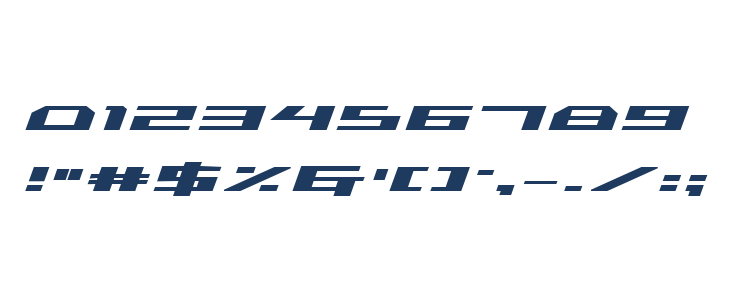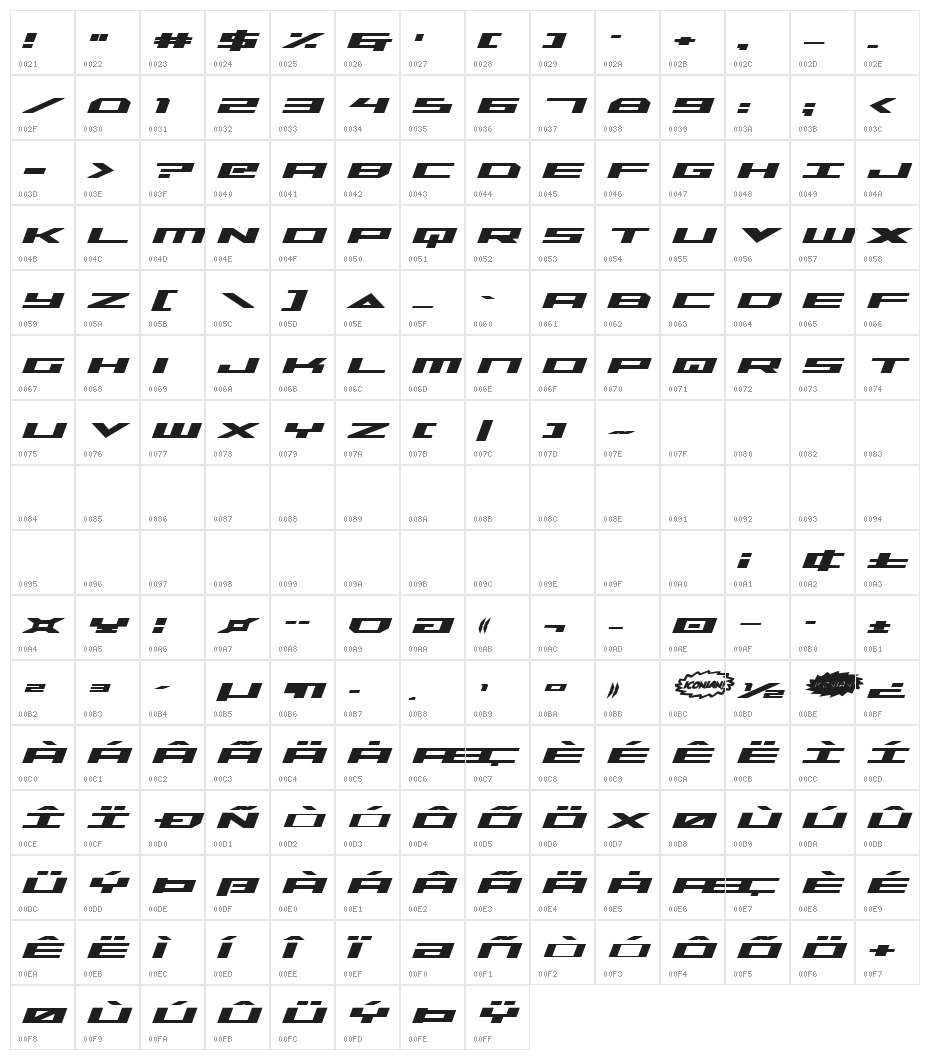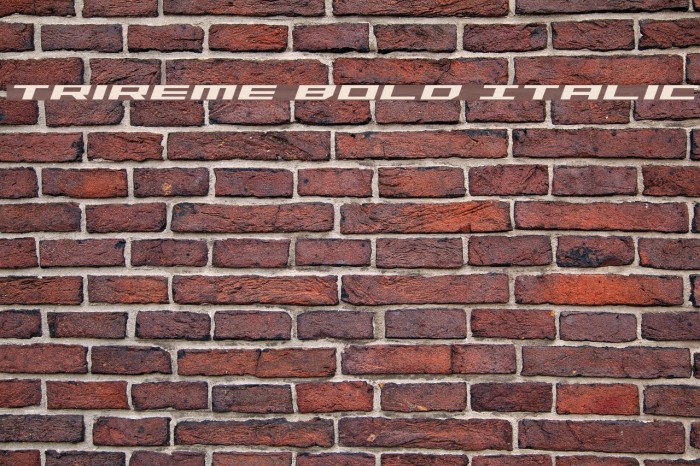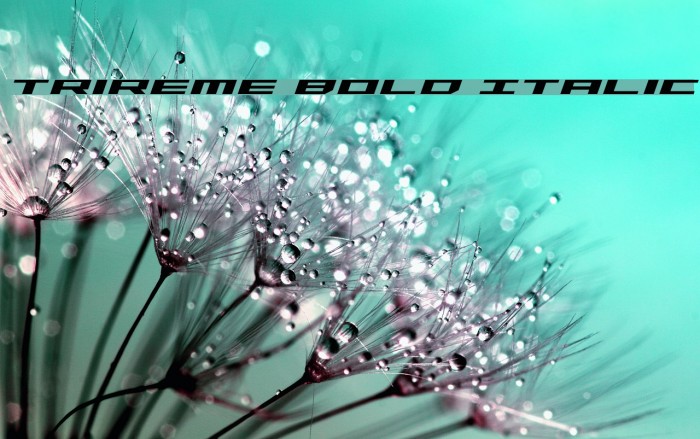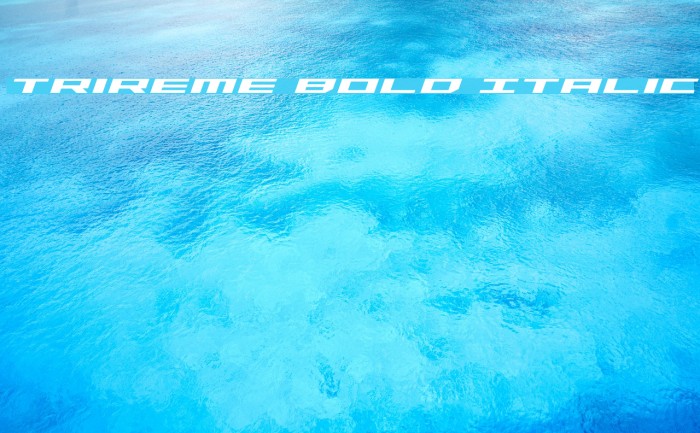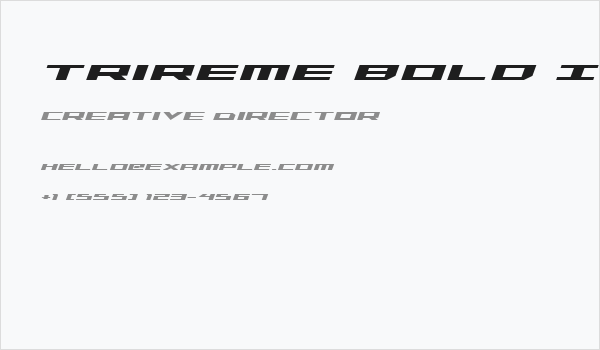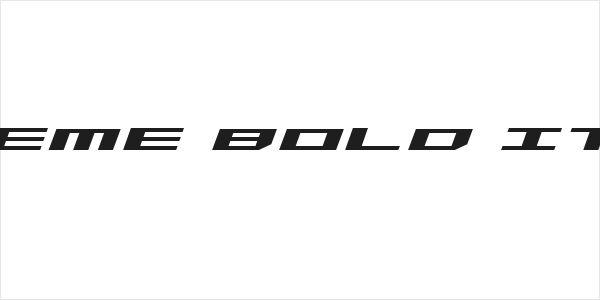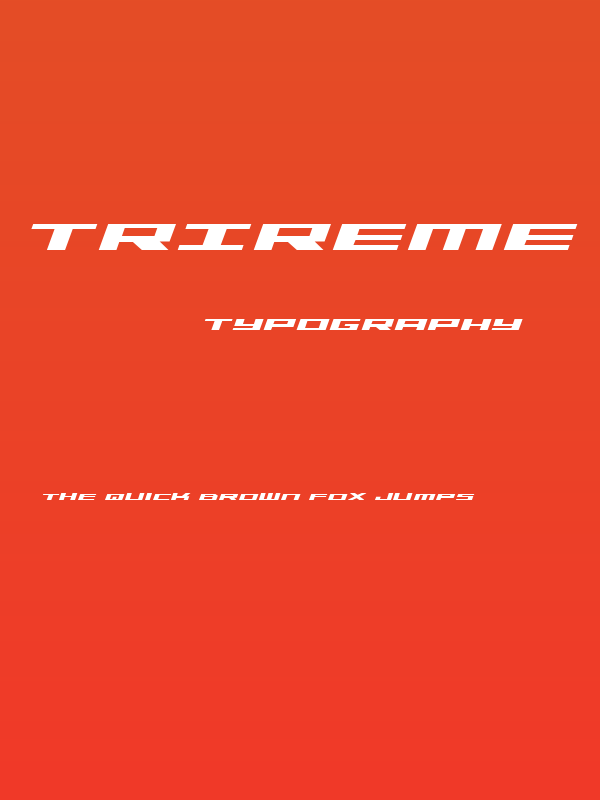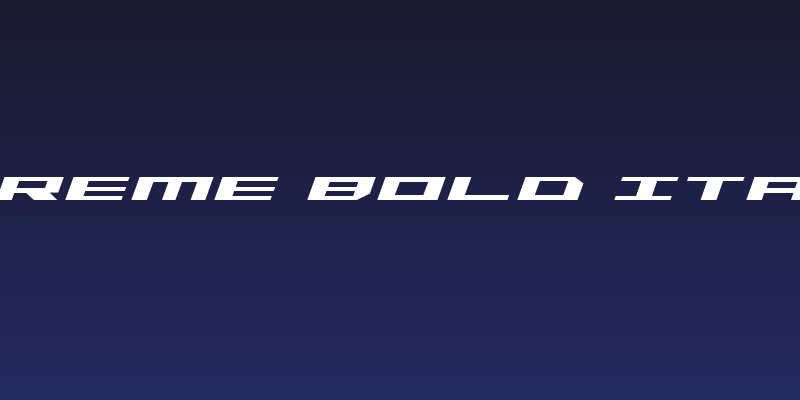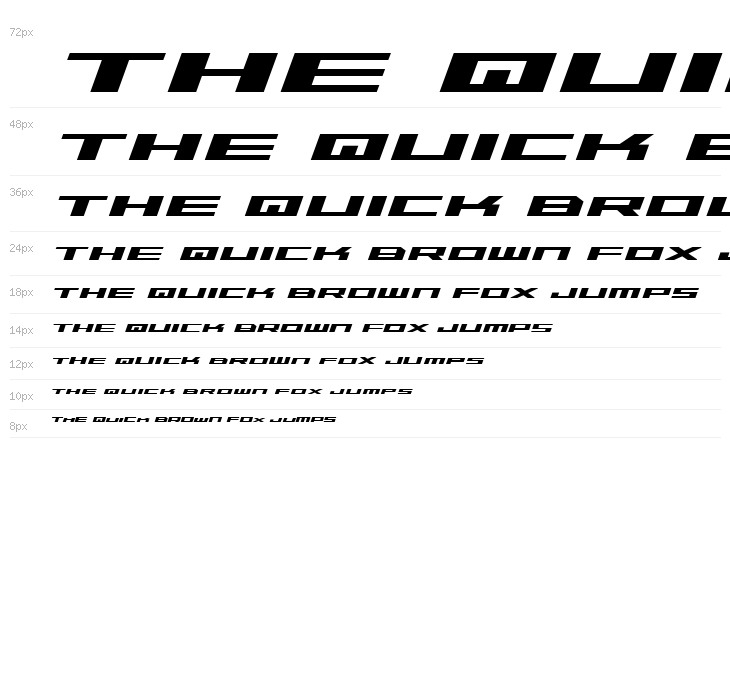
Trireme Bold Italic Font
Trireme Bold Italic Description
This font features a bold and italicized style with a futuristic and angular design. The characters are sharply cut with a distinct slant, giving a sense of motion and speed. The uppercase and lowercase letters maintain a consistent geometric form, while the numbers and special characters follow the same angular aesthetic. The font's boldness is emphasized by its thick strokes, which are consistent throughout each character, providing a strong visual impact. The italic slant adds a dynamic quality, making it suitable for modern and tech-oriented designs.
| Proposed Projects | Ideal for tech branding, sports team logos, video game titles, and futuristic posters. |